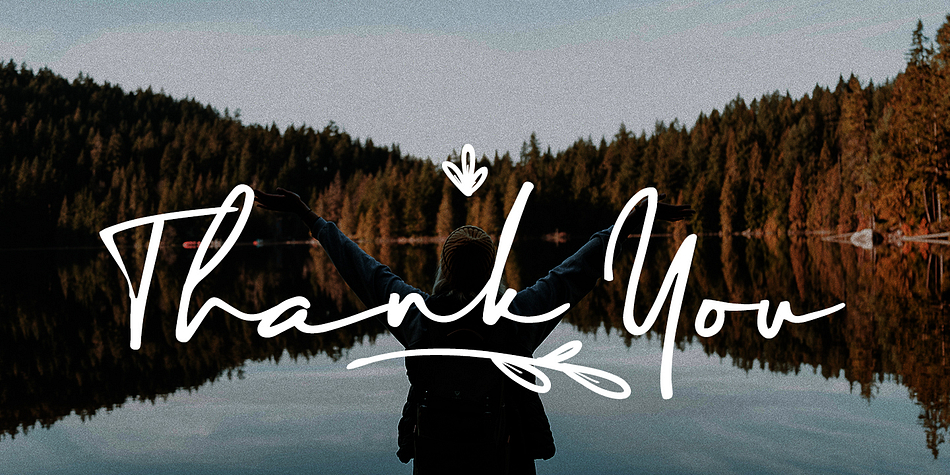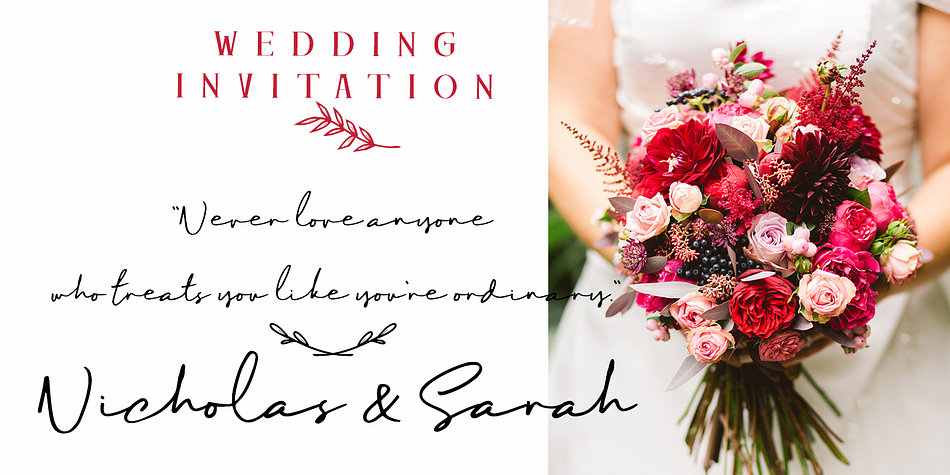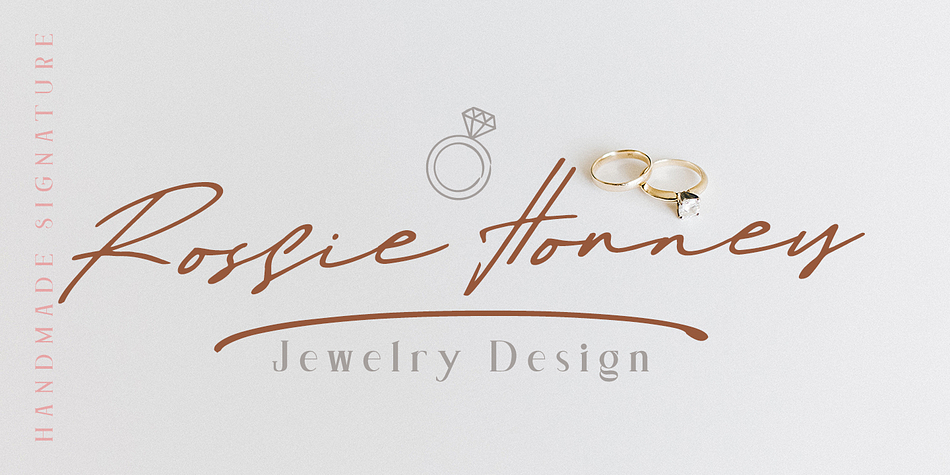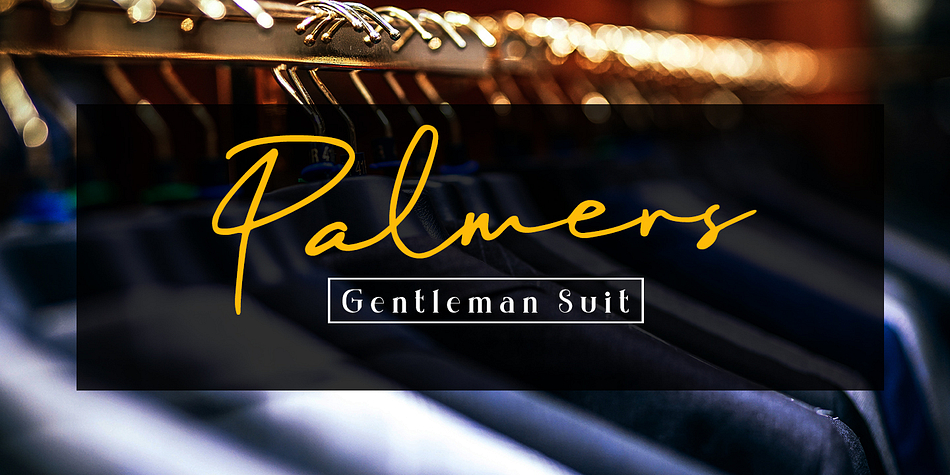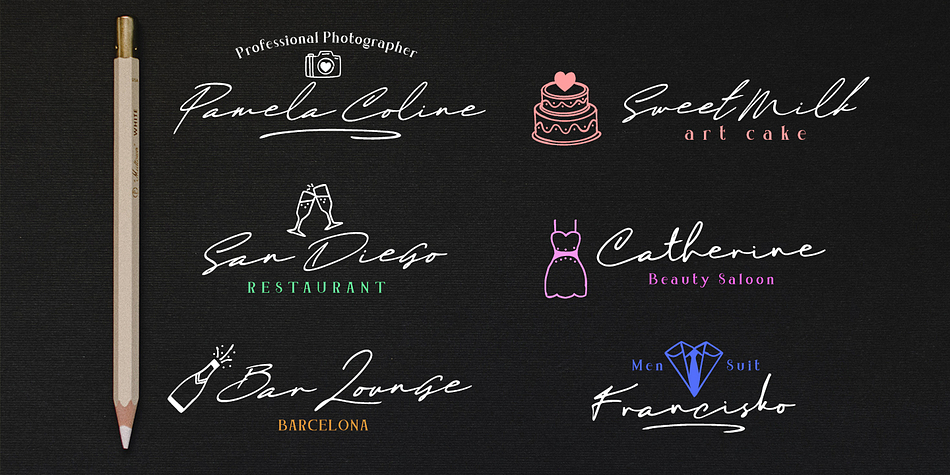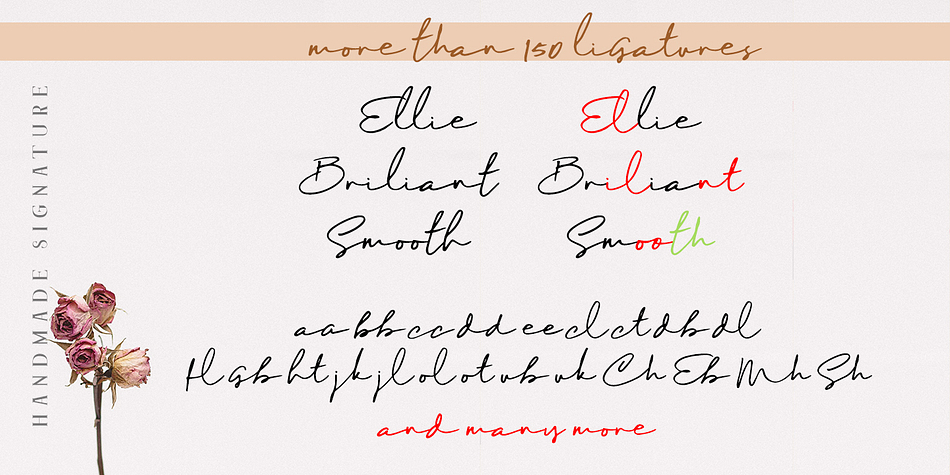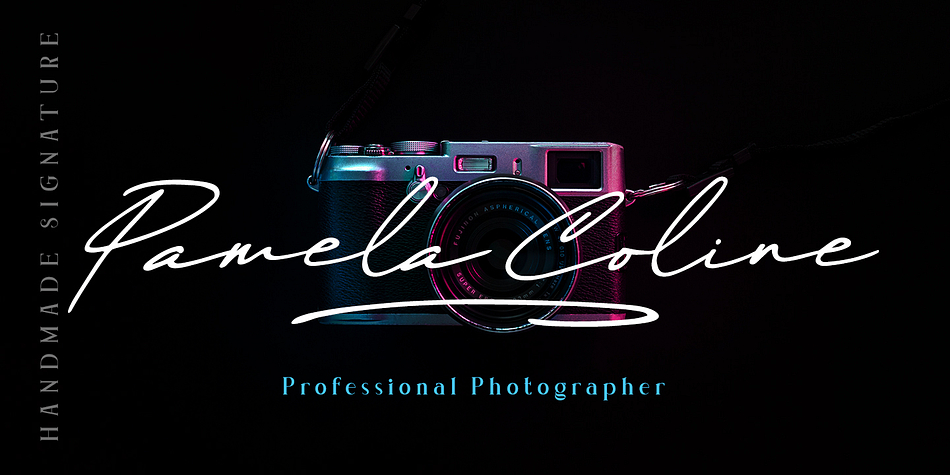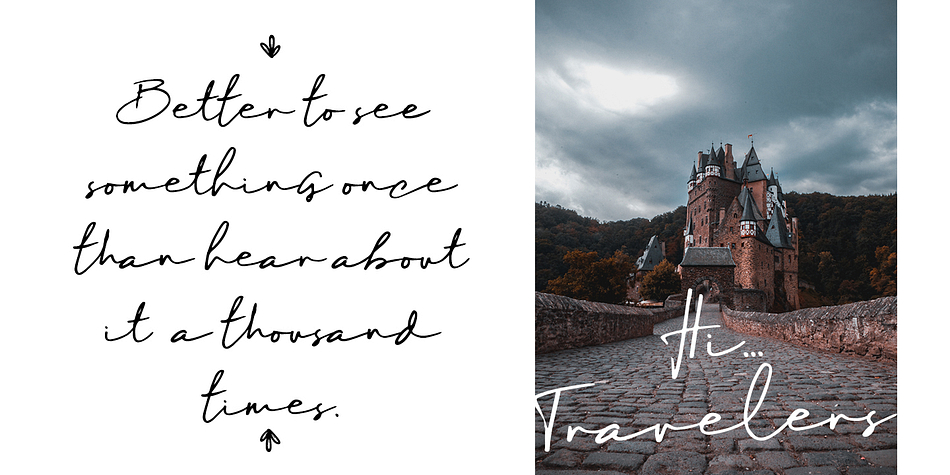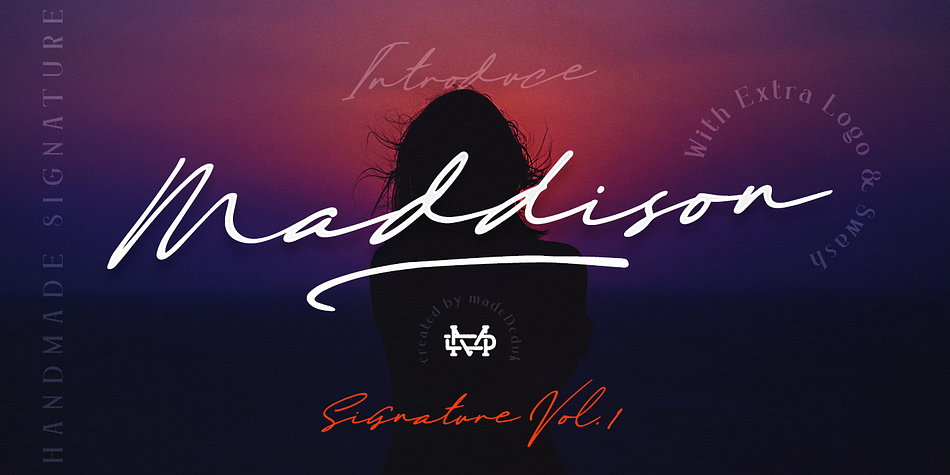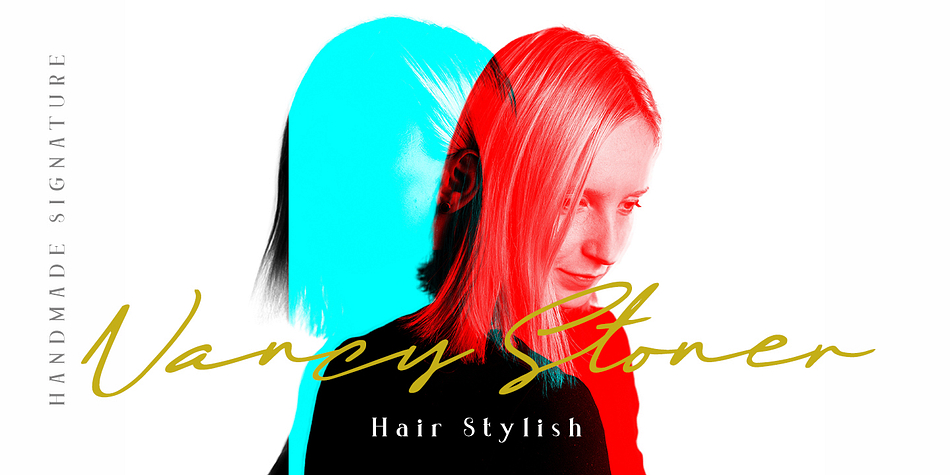
Designed by Suandana Ipandemade, Maddison is a hand drawn, script and dingbat font family. This typeface has three styles and was published by madeDeduk.
Introducing Maddison is gorgeous handmade signature font. Maddison signature includes more than 170 ligatures to make everything look natural handmade signature.This font perfect for poster design, book covers, merchandise, fashion campaigns, newsletters, branding, advertising, magazines, greeting cards, album covers, and quote designs and more.